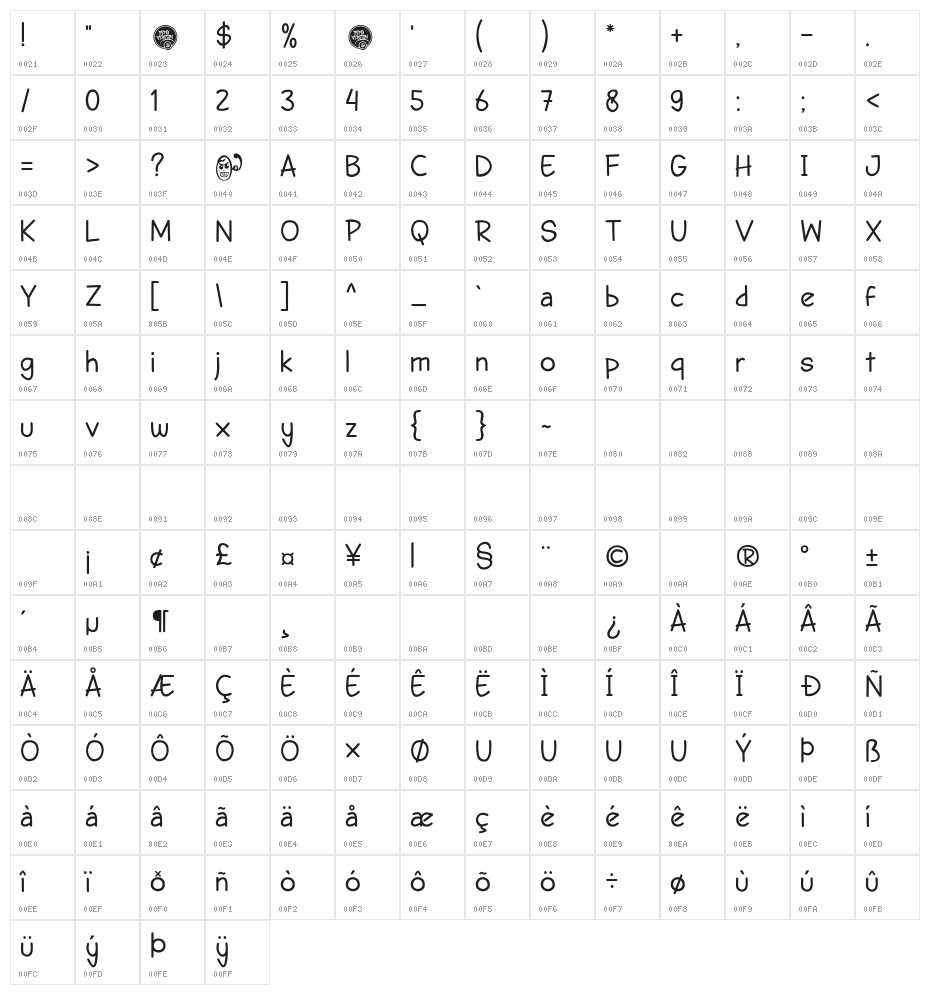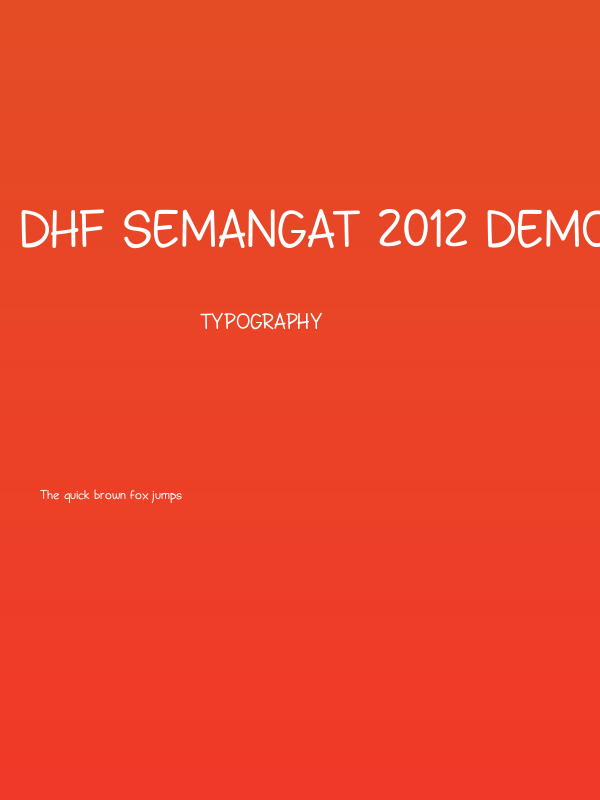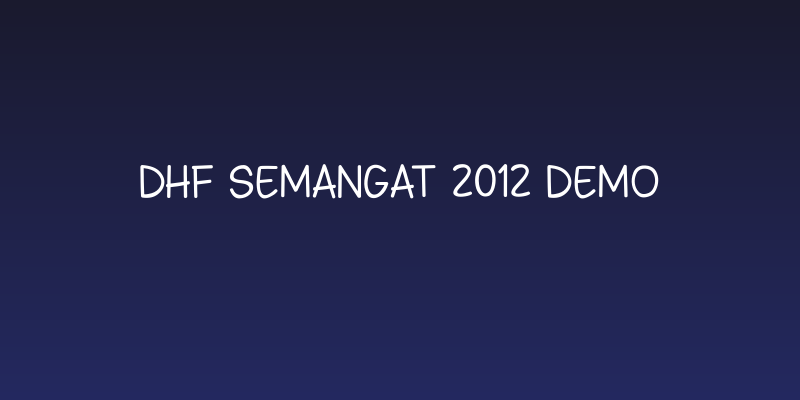
DHF Semangat 2012 Demo Font
DHF Semangat 2012 Demo Description
This playful and informal font features rounded edges and a hand-drawn style, giving it a friendly and approachable appearance. The characters are slightly irregular, adding to the casual and whimsical feel. The uppercase and lowercase letters maintain a consistent style, with smooth curves and a moderate stroke width. The numerals and special characters complement the alphabet with the same playful design. This font is ideal for projects that require a touch of fun and creativity, such as children's books, greeting cards, or playful branding.
| Proposed Projects | Ideal for children's books, greeting cards, playful branding, and creative projects. |